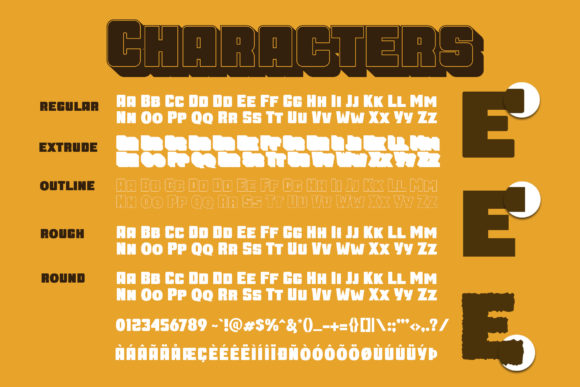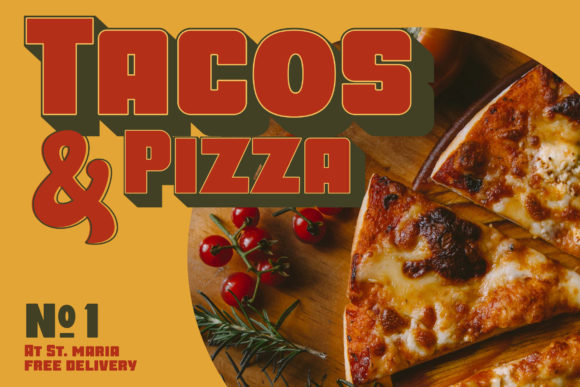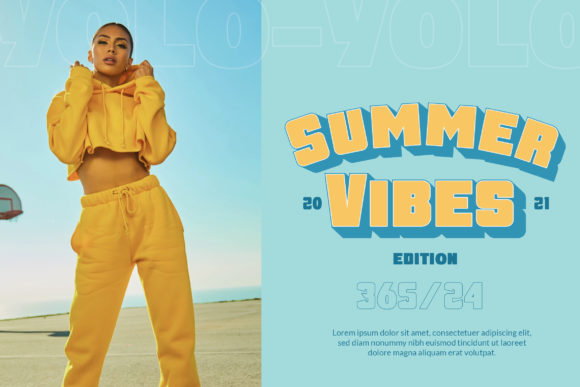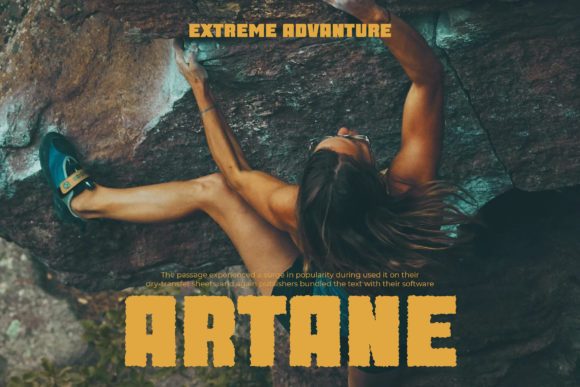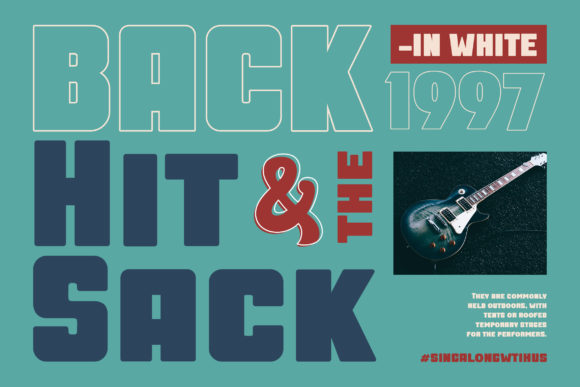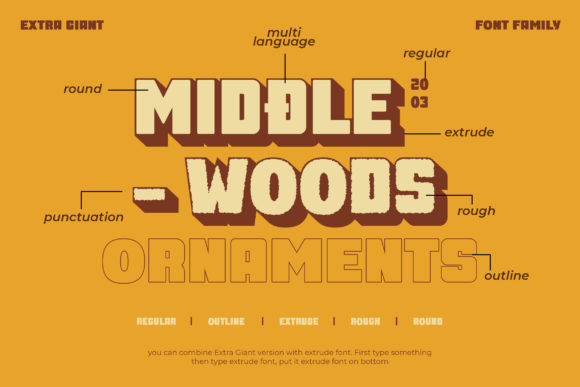
Introduction to Extra Giant Font
Extra Giant is a cool, bold and thick lettered display font.
Add this robotic looking font to your creations and they will instantly stand out .